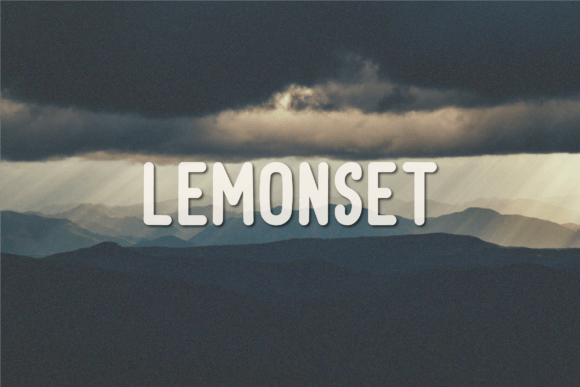
Dive into the world of Lemonset Font, a captivating sans serif creation by Becraft, designed to ignite your creativity and add a touch of whimsy to your digital designs. This all-caps font family exudes a playful and quirky charm, making it the perfect choice for adding a personal touch to your projects.
With its unique and eye-catching style, Lemonset Font stands out from the crowd. Whether you're crafting personalized greeting cards, creating eye-catching presentations, or designing captivating digital content, this font has the power to transform your ideas into captivating visual experiences.
Unlike ordinary fonts that blend into the background, Lemonset Font demands attention with its bold and playful strokes. It's a font that sparks conversations and leaves a lasting impression on your audience. Its playful personality adds a touch of charm to any project, making it perfect for those who want to stand out and make a statement.
Lemonset Font's versatility extends beyond its visual appeal. It's a font that effortlessly adapts to a wide range of applications, from digital designs to physical crafts. Whether you're creating personalized t-shirts, designing eye-catching posters, or adding a unique touch to your social media posts, Lemonset Font seamlessly blends with your vision.
So, embark on a creative journey with Lemonset Font, and unleash your imagination. Experience the joy of creating designs that resonate with your audience and leave a lasting impression. Let Lemonset Font be your creative companion, transforming your ideas into captivating visual masterpieces.